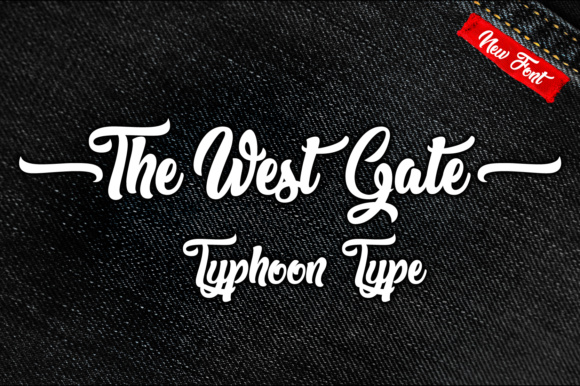
The West Gate Font
About The West Gate Font
The West Gate is a beautiful heavyweight script font, ideal for use in a wide range of project types. This font makes a nod to retro typography, and can add a ton of style to your work.